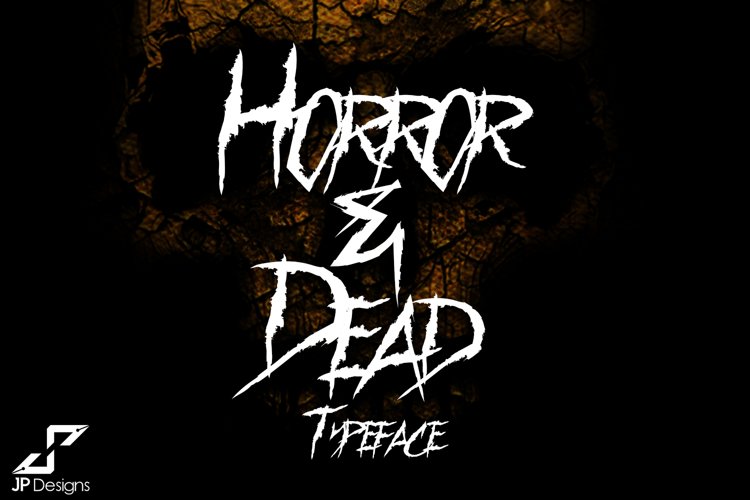
This is a source created with a horrific brush, with a semi brutal style.
A good alternative for dark concepts and everything related to art.
Created by Jorge Perez